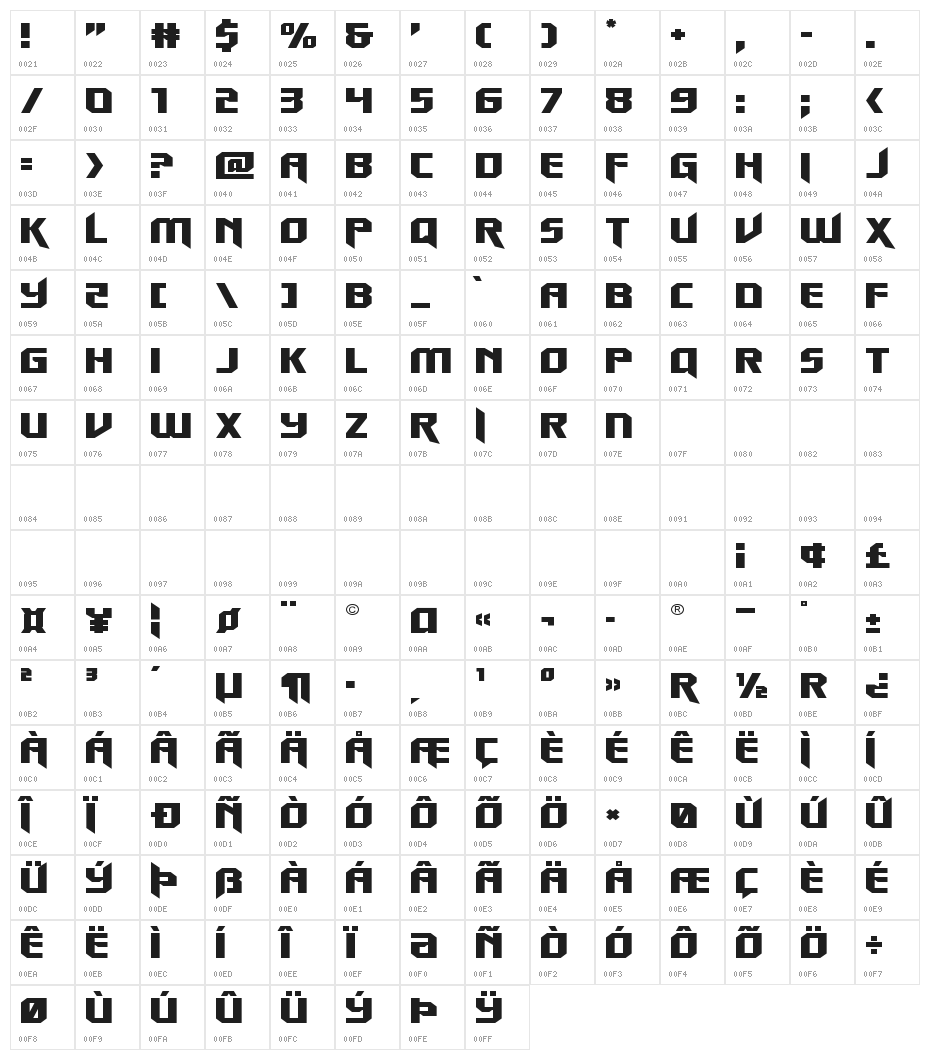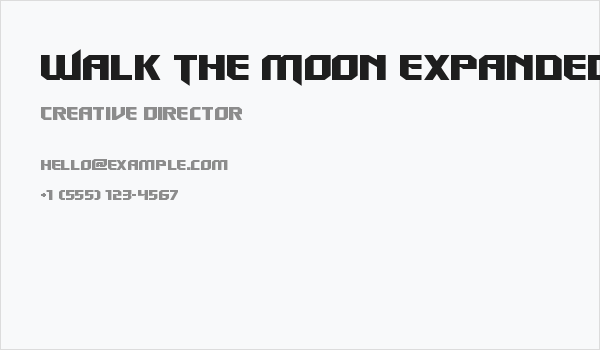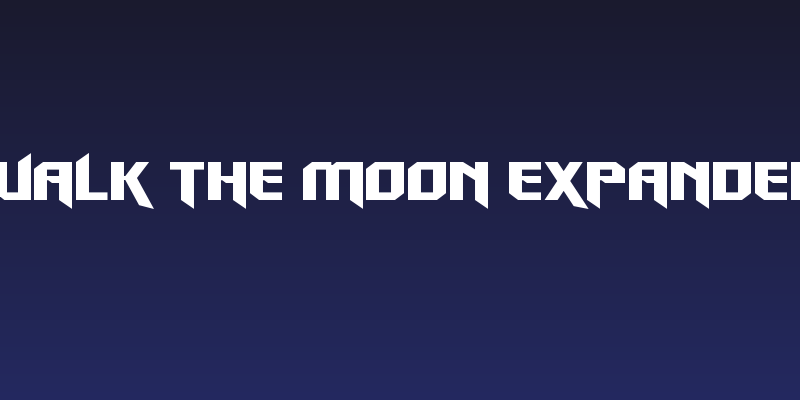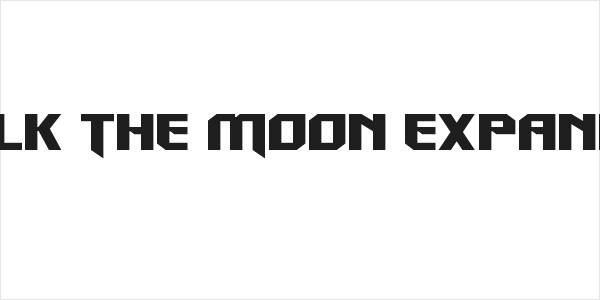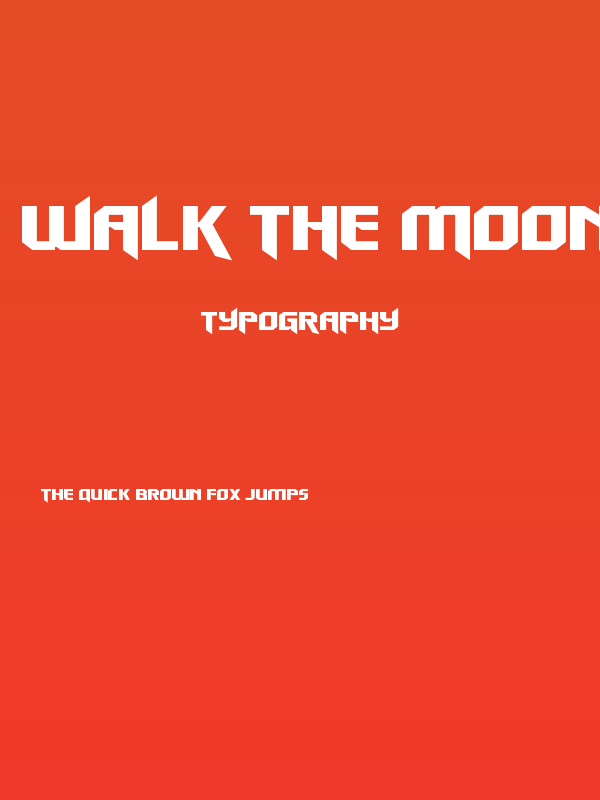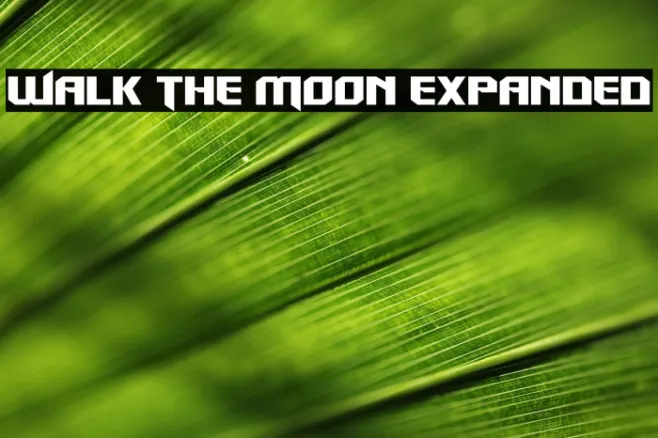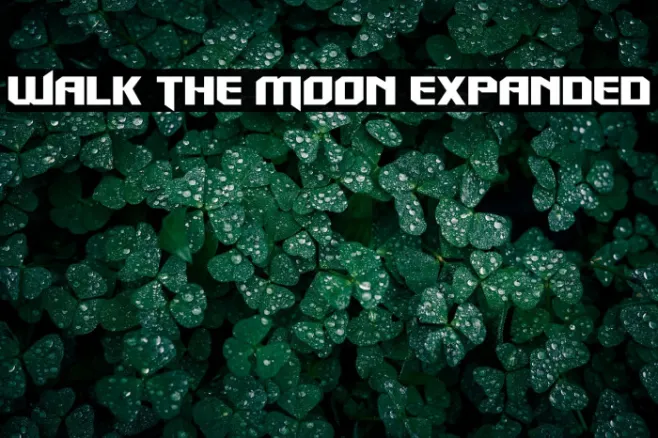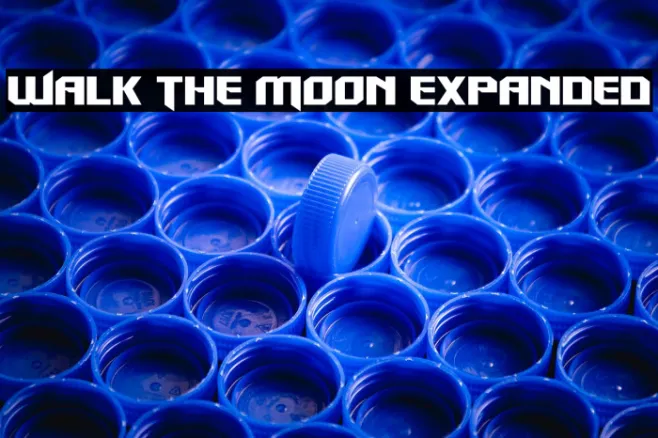
Walk The Moon Expanded Font
Walk The Moon Expanded Description
This font features a bold, geometric style with sharp angles and a futuristic aesthetic. The characters are designed with a consistent thickness, giving them a strong and impactful presence. The uppercase letters are particularly striking, with unique cuts and angles that create a sense of movement and energy. The numbers and special characters maintain this bold style, ensuring a cohesive look across all elements. The overall design is modern and eye-catching, making it suitable for projects that require a strong visual impact.
| Proposed Projects | Ideal for branding, posters, album covers, and any project needing a modern, impactful typeface. |